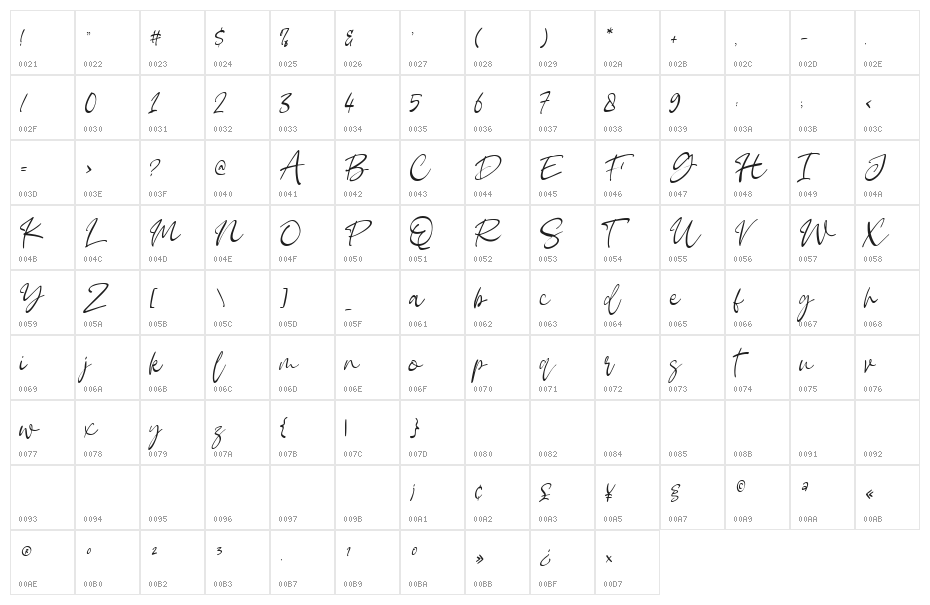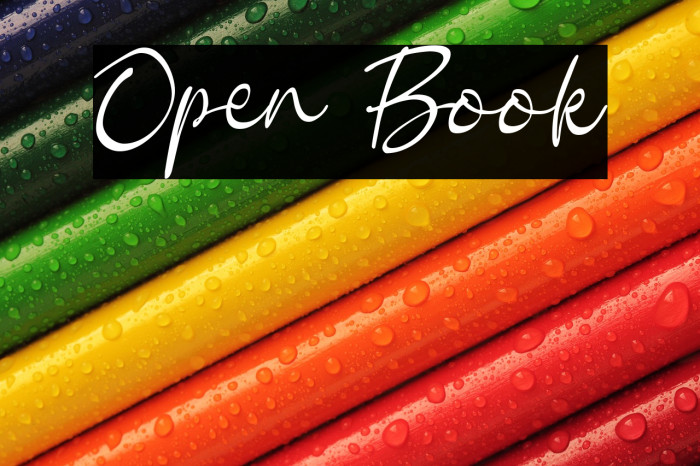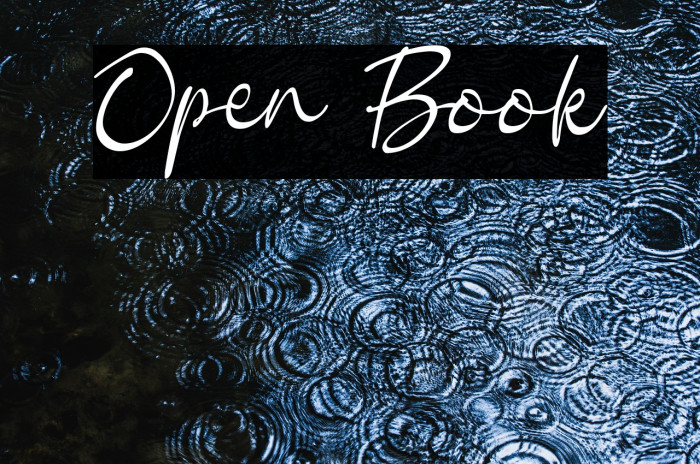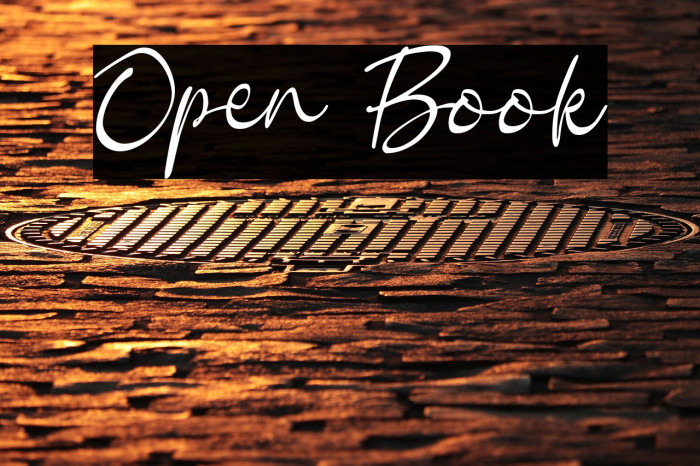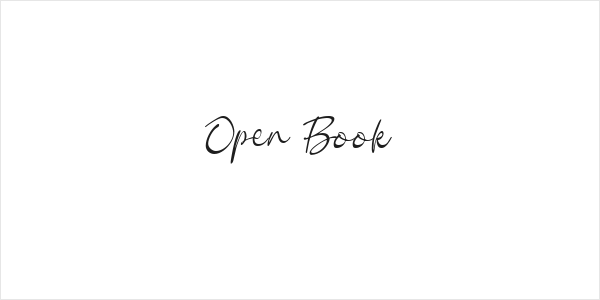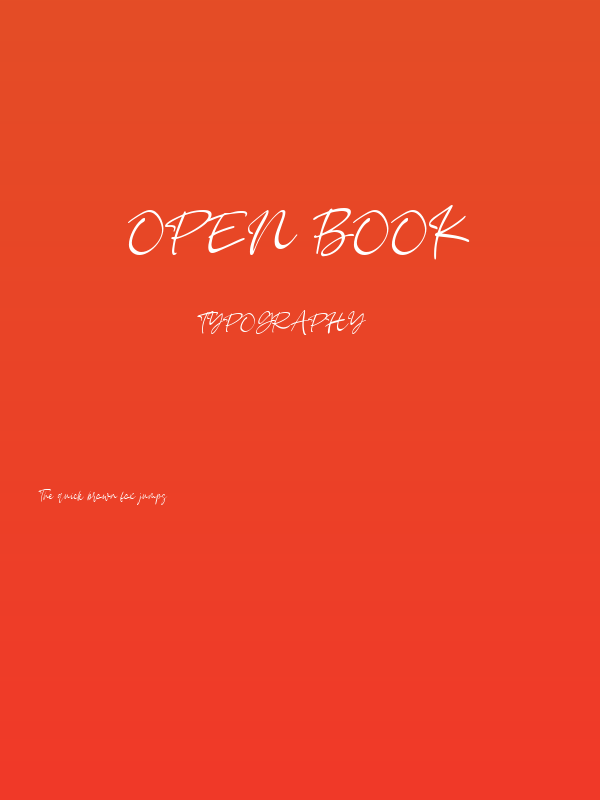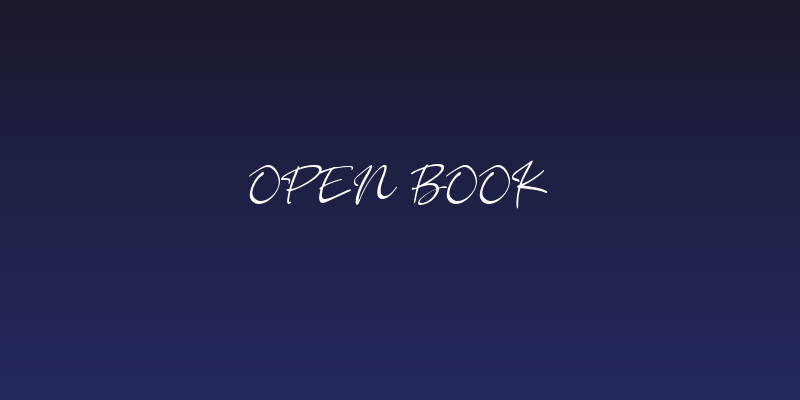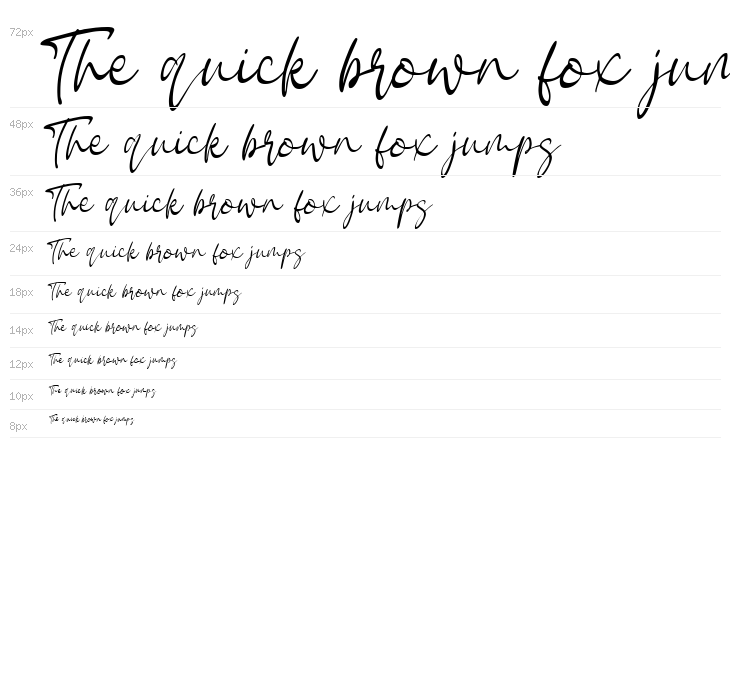
Open Book Font
Open Book Description
This font features an elegant, flowing script style that mimics natural handwriting. The characters are connected with smooth, fluid strokes, giving it a personal and artistic touch. The uppercase letters are slightly more elaborate, with flourishes that add a sense of sophistication. The lowercase letters maintain a consistent flow, enhancing readability while retaining a stylish appearance. Numbers and special characters are designed to complement the overall aesthetic, ensuring a cohesive look. This font is perfect for projects that require a touch of elegance and personality.
| Overall Style | Elegant, Artistic |
| Use Case | Logos, Invitations, Personal Branding |
| Proposed Projects | Ideal for wedding invitations, greeting cards, personal branding, and artistic projects. |